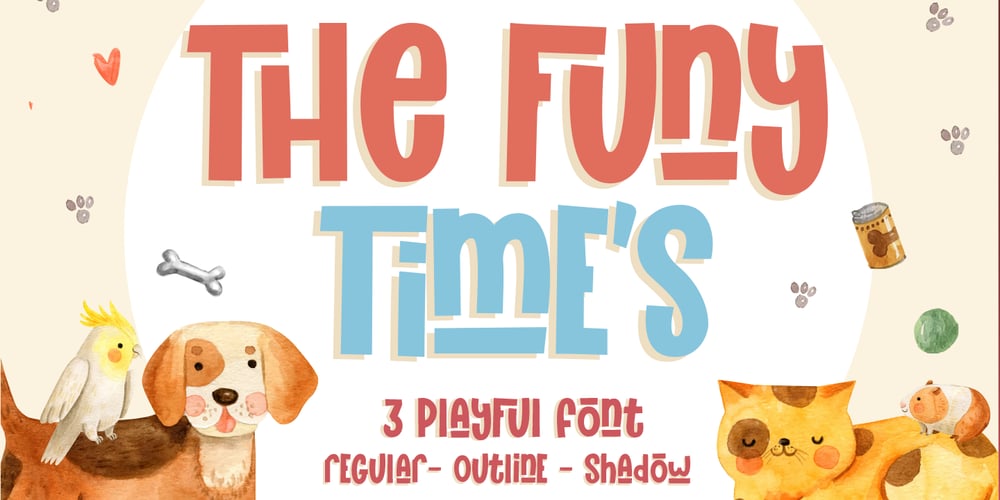
The Funy Times Font Family was designed by Gumilar Pratama Adiatna and published by Gilar Studio. The Funy Times contains 3 styles and family package options. The Funy Time’s Is a Joyful Display Font With 3 Style (Regular,Outline and Shadow)You Can Mix And Match for Your Awesome ProjectThis fonts is ideal for crafting, branding and decorate your any project. This fonts are perfect for wedding invitation or your blog. Also with their help, you can create a logo or beautiful frame for your home. Or just use for your business, book covers, stationery, marketing, magazines and more.FEATURES :Uppercase & LowercaseNumber & PunctuationMore than 256 of glyphsMultilingual LanguagePUA Encode24 LigaturesAlternateThe alternative characters were divided into several Open Type features can be accessed by using Open Type savvy programs such as Adobe Illustrator, Adobe InDesign, Adobe Photoshop Corel Draw X version, And Microsoft Word. And this Font has given PUA unicode (specially coded fonts). so that all the alternate characters can easily be accessed in full by a craftsman or designer.Check Out my other fonts here : gilarstudio.com